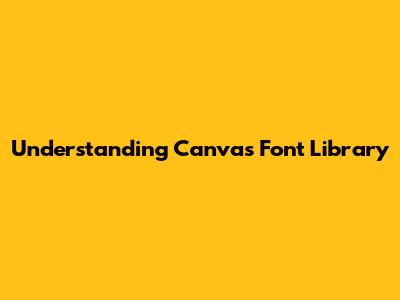
Hey guys! Ever found yourself scrolling endlessly through Canva, trying to find that perfect font to make your design pop? Yeah, me too! It can be a real mission sometimes, right? But don't sweat it, because today we're diving deep into the world of Canva fonts. We'll cover everything from finding those hidden gems to understanding the different types of fonts available and how to use them like a pro. So, buckle up, and let's make your designs stunning!
Understanding Canva's Font Library
First off, let's talk about what Canva actually offers in terms of fonts. You guys probably know Canva has a massive library, and that includes a ton of fonts. We're talking thousands, seriously! They've got everything from super sleek and modern sans-serifs to fancy, decorative script fonts that look like they were hand-drawn. You'll find classic serifs that scream professionalism and quirky, fun fonts perfect for those playful projects. The cool thing is that Canva keeps adding new fonts too, so your options are always fresh. Now, a big chunk of these fonts are available for free, which is awesome for us budget-conscious creators. But, you'll also notice some fonts have a little crown icon next to them. These are part of Canva Pro. If you're a Pro user, you get access to all of them, which is a huge bonus for taking your designs to the next level. But honestly, even the free collection is more than enough to get started and create some seriously impressive stuff. The key is knowing how to navigate this vast collection and pick the right one for your vibe.
How to Find Fonts in Canva
Alright, so you're in the Canva editor, and you need a font. Where do you start? It's actually super simple, guys! When you add a text box to your design, you'll see a toolbar pop up at the top. Right there, smack dab in the middle, is the font dropdown menu. Click on that, and boom, you're in the font library. Now, if you already know the name of the font you want, there's a search bar at the very top of the font menu. Just type it in, and Canva will find it for you. Easy peasy!
But what if you don't know what you're looking for? This is where the fun begins! Canva has a few cool ways to help you discover new fonts. You can browse by category. See those little icons or dropdowns? They let you filter by style – think 'Serif,' 'Sans Serif,' 'Script,' 'Display,' 'Handwritten,' and more. This is great when you have a general idea, like 'I need something elegant' or 'I want something playful.'
Another awesome feature is the ' Font Combinations' suggestion. Canva often suggests pairings that work well together. This is a lifesaver, honestly. You pick one font, and Canva shows you other fonts that complement it. It takes the guesswork out of pairing, and you end up with professional-looking text hierarchies. You can also explore fonts by mood or purpose. Sometimes, you'll see curated collections or recommendations based on your current design, which is super helpful.
Don't forget to check out the ' Recently Used' and ' Saved Fonts' sections too. Once you find a font you love, make sure to click the star icon next to it. This adds it to your ' Saved Fonts,' so you can easily access it again without having to search. This is a game-changer for branding and consistency across your projects, guys. Keep your favorites handy and speed up your workflow!
Ultimately, the choice between free and Pro fonts depends on your needs and budget. If you're just starting out or working on casual projects, the free font library is more than sufficient. But if you need that extra creative edge, want access to a wider selection of unique typefaces, or are building a strong brand identity, Canva Pro fonts are a worthwhile investment. Remember, consistency is key in branding, and having a curated selection of fonts you love readily available can make a big difference.
Tips for Choosing the Right Font
Choosing the right font guys, is so crucial for your design's success. It’s like picking the right outfit for an occasion – it sets the tone and conveys a message before anyone even reads the words. So, let's break down some killer tips to help you pick the perfect font from Canva's massive library.
First things first: Consider your audience and the message. Who are you trying to reach? What feeling do you want to evoke? A playful, bubbly font is great for a kids' party invitation, but it's probably a terrible choice for a formal business proposal. A bold, strong font might work for a gym advertisement, but it could look out of place on a wedding invitation. Think about the personality of your brand or project. Is it modern, traditional, quirky, elegant, serious, or fun? Your font choice should align perfectly with this personality. For example, sans-serif fonts (like Arial or Montserrat) often feel modern, clean, and approachable. Serif fonts (like Times New Roman or Georgia) tend to be more traditional, formal, and trustworthy. Script fonts can be elegant and personal, while display fonts are best used for headlines and grabbing attention due to their unique, often decorative nature.
Second, readability is king! No matter how beautiful a font looks, if people can't read it easily, it's failed its primary job. This is especially important for body text, which needs to be legible at various sizes, on different screens, and even in print. Test your chosen font in the actual size you'll be using it. Can you read it comfortably? Are the letters distinct, or do they blur together? Avoid fonts that are too condensed, too wide, or have very thin strokes for large blocks of text. For headlines, you have more freedom to play with decorative or bolder fonts, but remember they still need to be clear and impactful.
Third, don't overdo it with font pairings. While using multiple fonts can add visual interest, using too many can make your design look cluttered and unprofessional. A good rule of thumb is to stick to two, maybe three, fonts at most. Typically, you'll want a font for your headings and another for your body text. You can use a third font for accents or calls to action if needed. Canva's font combination suggestions are a fantastic starting point here. Look for pairings where the fonts complement each other in style and weight without clashing. For instance, pairing a bold sans-serif headline with a more readable serif body text can create a beautiful contrast and hierarchy.
Fourth, consider the medium. Where will your design be displayed? Fonts that look great on a large digital screen might not render well on a small mobile device or in a printed brochure. Web-safe fonts generally perform well across platforms, but always preview your design on the intended medium if possible. High-resolution prints can handle more intricate details, while lower-resolution digital displays might benefit from simpler, bolder fonts.
Finally, trust your gut and experiment! Canva makes it incredibly easy to try different fonts. Don't be afraid to swap things around. Play with different weights (bold, regular, light) and styles (italic) of the same font family. See what feels right. Sometimes the font that looks best on paper isn't the one that truly captures the essence of your project. Get feedback from others if you can. Ultimately, the goal is to create a design that is not only visually appealing but also effectively communicates your message, and the right font is a massive part of that puzzle, guys!
Using Your Brand Fonts in Canva
This is a huge one, especially for my fellow business owners and brand builders out there, guys! Consistency is absolutely key when it comes to branding. If your brand has specific fonts – maybe your logo uses a certain typeface, or you've established a go-to font for your marketing materials – you'll want to use those same fonts consistently across all your designs. This helps people recognize your brand instantly and builds trust and professionalism. The good news? Canva makes it super easy to upload and use your own brand fonts.
If you're a Canva Pro user, you get access to the Brand Kit feature. This is an absolute game-changer! Within your Brand Kit, you can upload your own fonts. Just navigate to your Brand Kit in your Canva dashboard, find the 'Fonts' section, and hit 'Upload a font.' You'll need to have the font files (usually .otf, .ttf, or .woff formats) ready on your computer. Once uploaded, these fonts become available directly within the Canva editor, categorized under 'Uploaded Fonts' in your font menu. This means you can easily select your brand's official fonts for any design project without having to re-upload them each time. It saves so much time and ensures your brand identity stays sharp and consistent across all your marketing collateral, social media posts, presentations, and whatever else you're creating.
Even if you're not a Pro user, you can still upload fonts, though it's a slightly more manual process and typically tied to individual designs or templates rather than a global brand kit. However, the best and most streamlined way to manage your brand fonts within Canva is definitely through the Brand Kit feature with a Pro subscription. It keeps everything organized, accessible, and ensures that every design bearing your brand name looks exactly as it should. So, if brand consistency is important to you, seriously consider leveling up to Canva Pro just for this feature alone, along with all the other amazing benefits!
Conclusion: Mastering Canva Typography
So there you have it, folks! We've journeyed through the vast and wonderful universe of Canva fonts. We've explored how to navigate that massive font library, discovered tips for picking the perfect typeface for any project, and even touched upon the difference between free and Pro options. Plus, we covered the super-important step of uploading your own brand fonts to keep things consistent and professional.
Remember, typography is more than just picking pretty letters; it's about communication. The right font can evoke emotion, convey authority, spark joy, or simply make your message clear and easy to digest. Canva gives you the tools to play with thousands of options, so don't be afraid to experiment! Use the search filters, check out the font pairings, and most importantly, always consider your audience and the overall message you want to send.
Whether you're a casual user whipping up a birthday card or a business owner creating professional marketing materials, mastering Canva fonts will undoubtedly elevate your designs. Keep practicing, keep exploring, and happy designing, guys! You've got this!